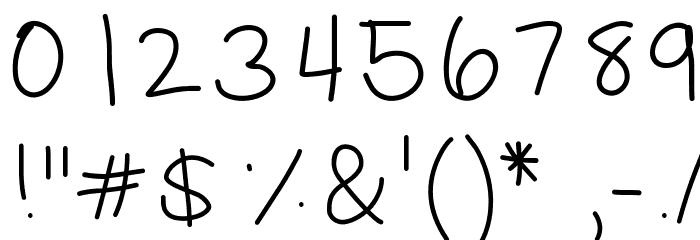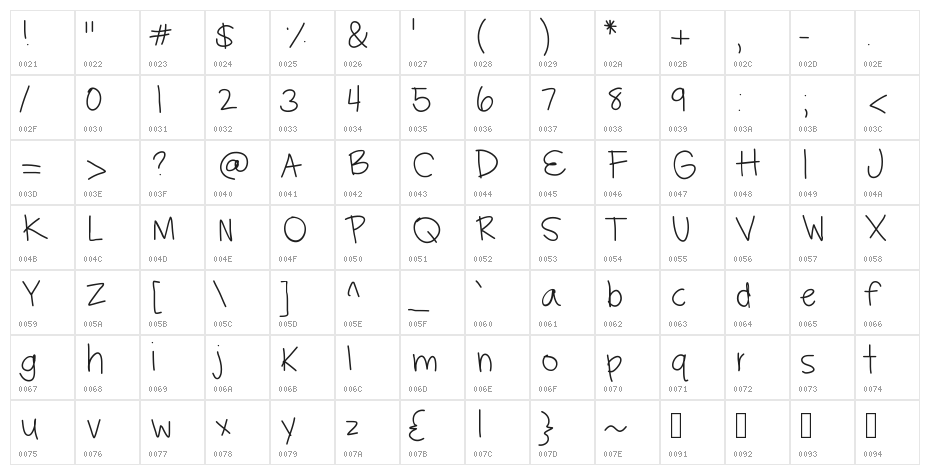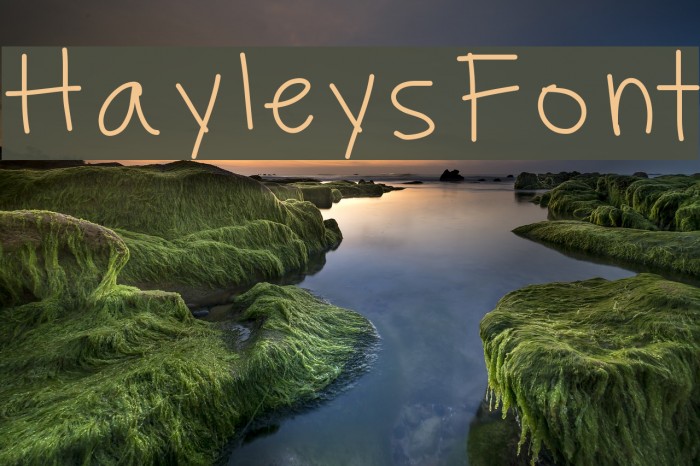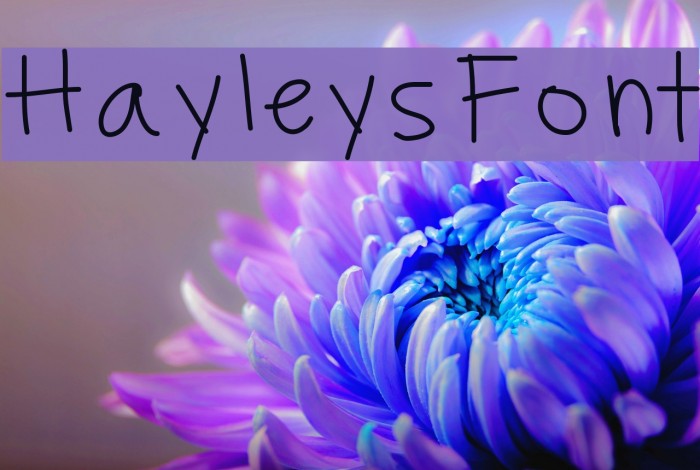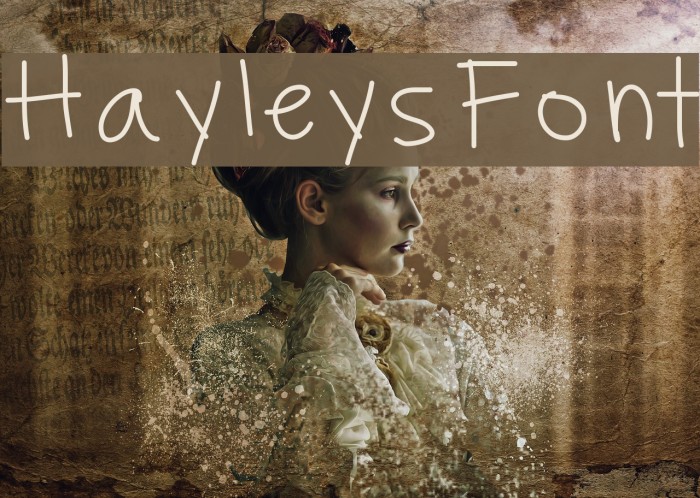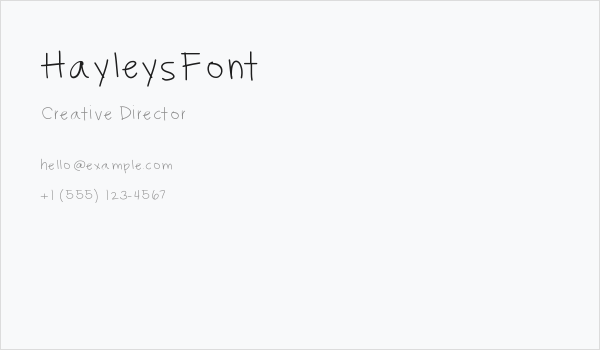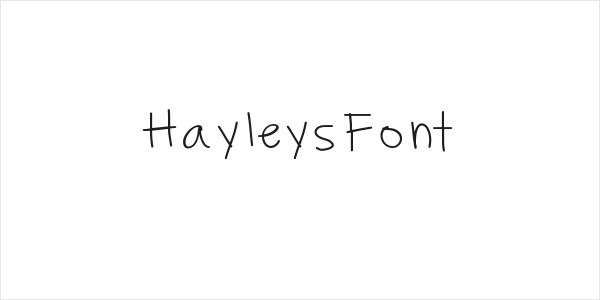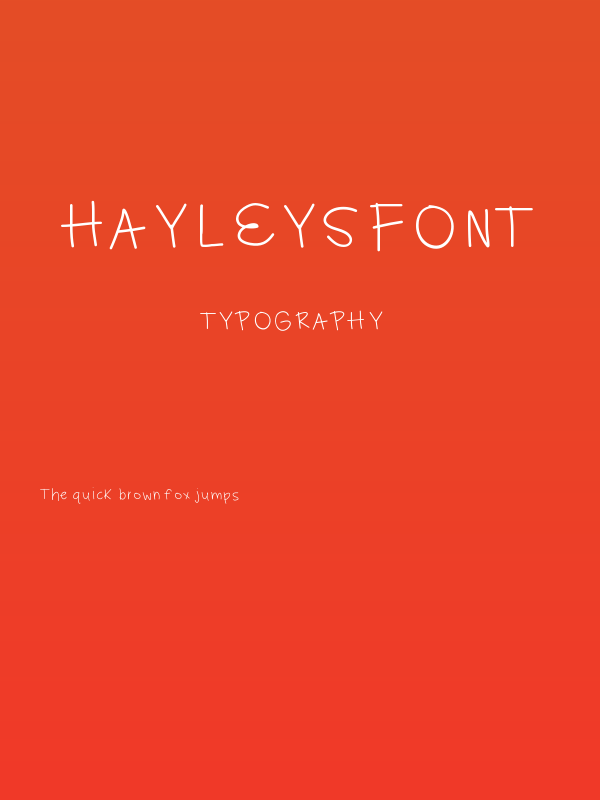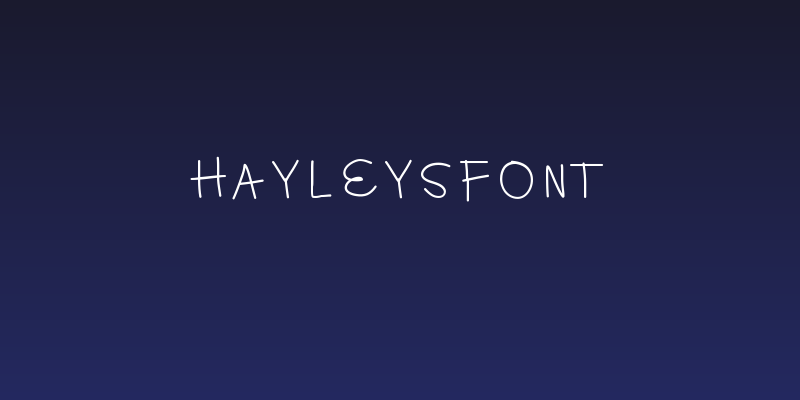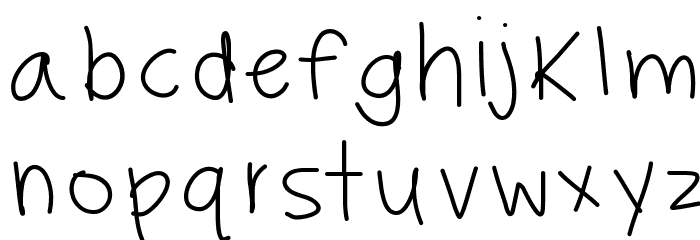
HayleysFont Font
HayleysFont Description
This font features a playful and casual handwritten style, characterized by its irregular strokes and slightly tilted letters. The uppercase and lowercase letters maintain a consistent flow, giving it a natural and organic feel. The numbers and special characters are designed to match the informal aesthetic, making it suitable for projects that require a personal touch. The overall appearance is approachable and friendly, with a touch of whimsy that adds charm to any design.
HAYLEYSFONT UPPERCASE
HAYLEYSFONT LOWERCASE
HAYLEYSFONT OTHER CHARS
| Use Case | Headlines, Informal text, Personal projects |
| Proposed Projects | Ideal for greeting cards, children's books, personal blogs, and informal branding. |